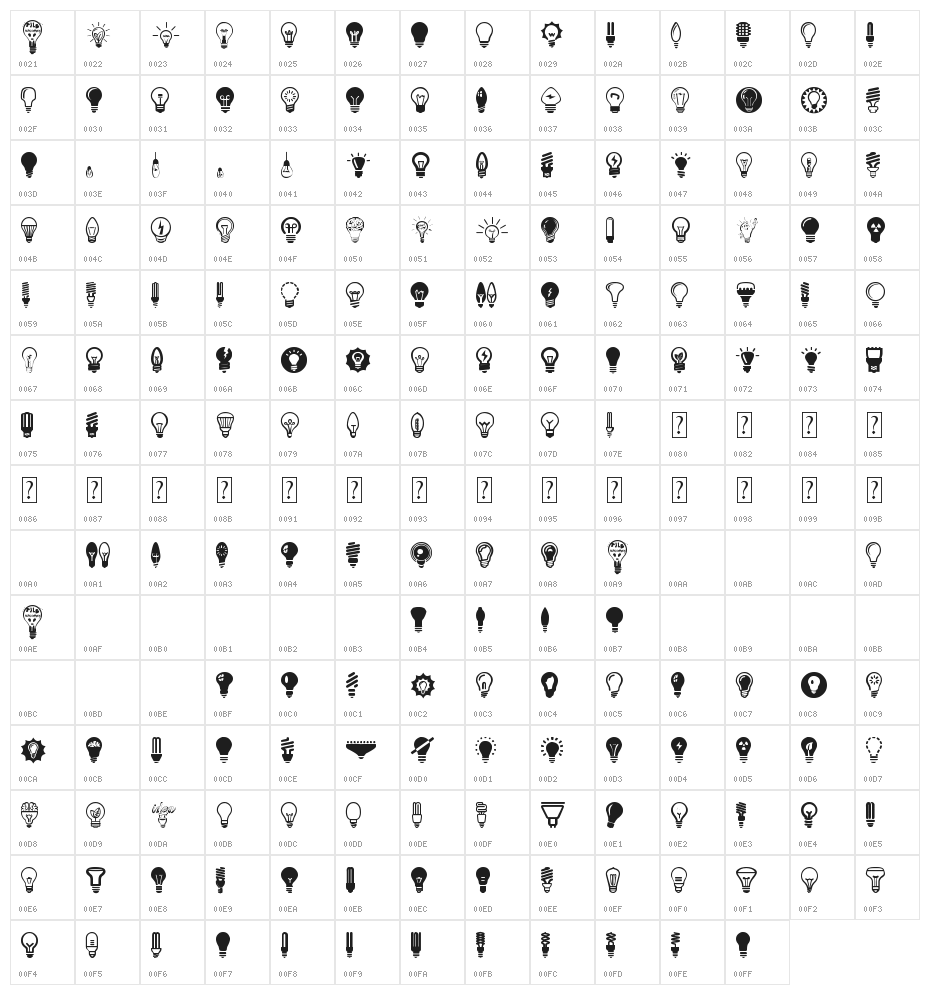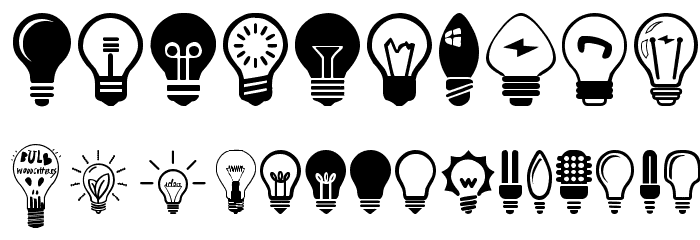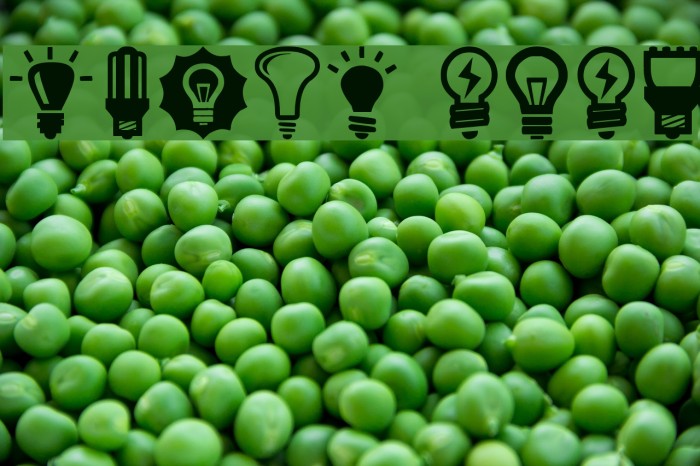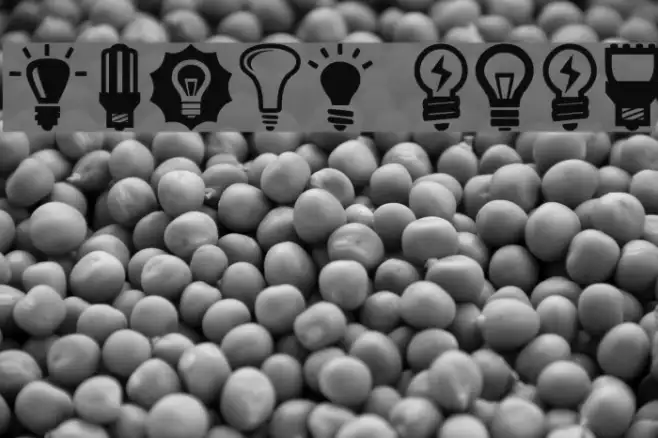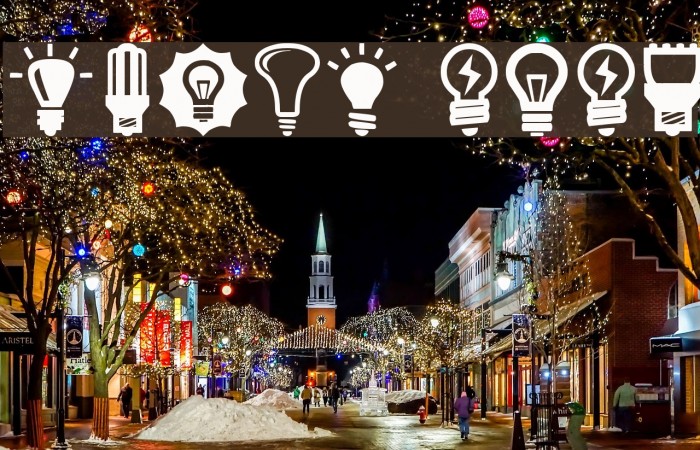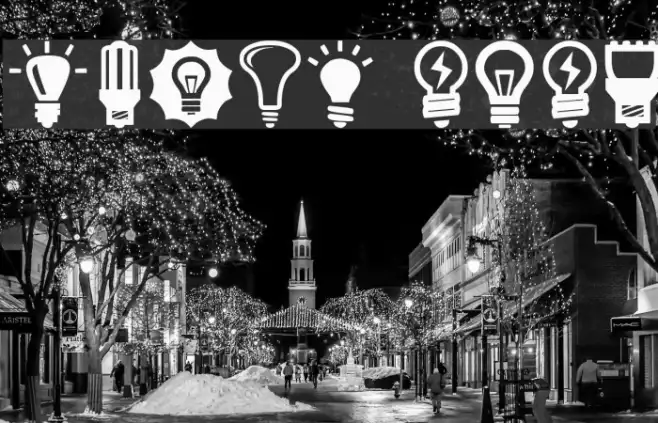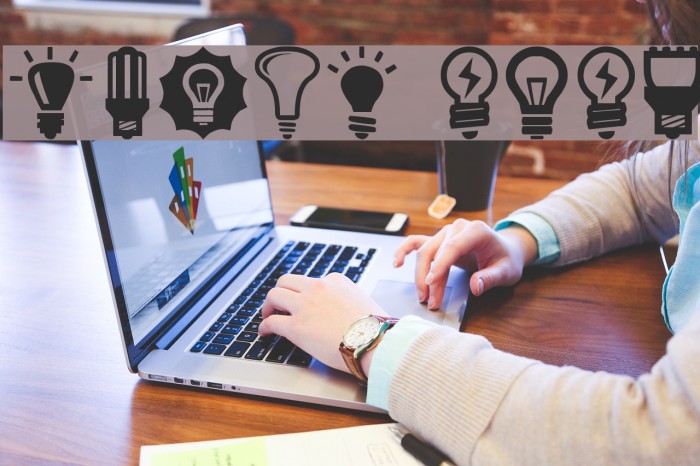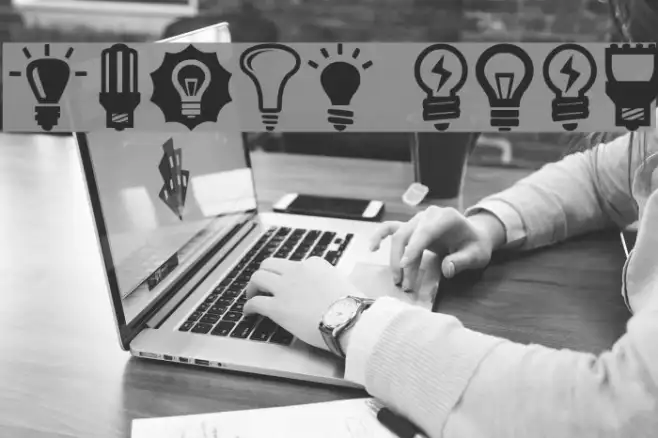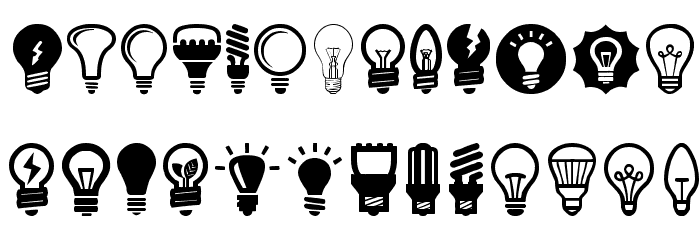
Bulbs Font
Bulbs Description
A diverse collection of black and white light bulb icons, featuring a wide range of styles including traditional, compact fluorescent, LED, and conceptual designs with various decorative elements such as rays, symbols, and creative fills.
| Overall Style | Decorative, Modern, Playful |
| Use Case | Icons, Logos, Visual accents, Branding |
| Proposed Projects | Infographics, educational materials, energy-related branding, app icons, presentations, creative posters. |